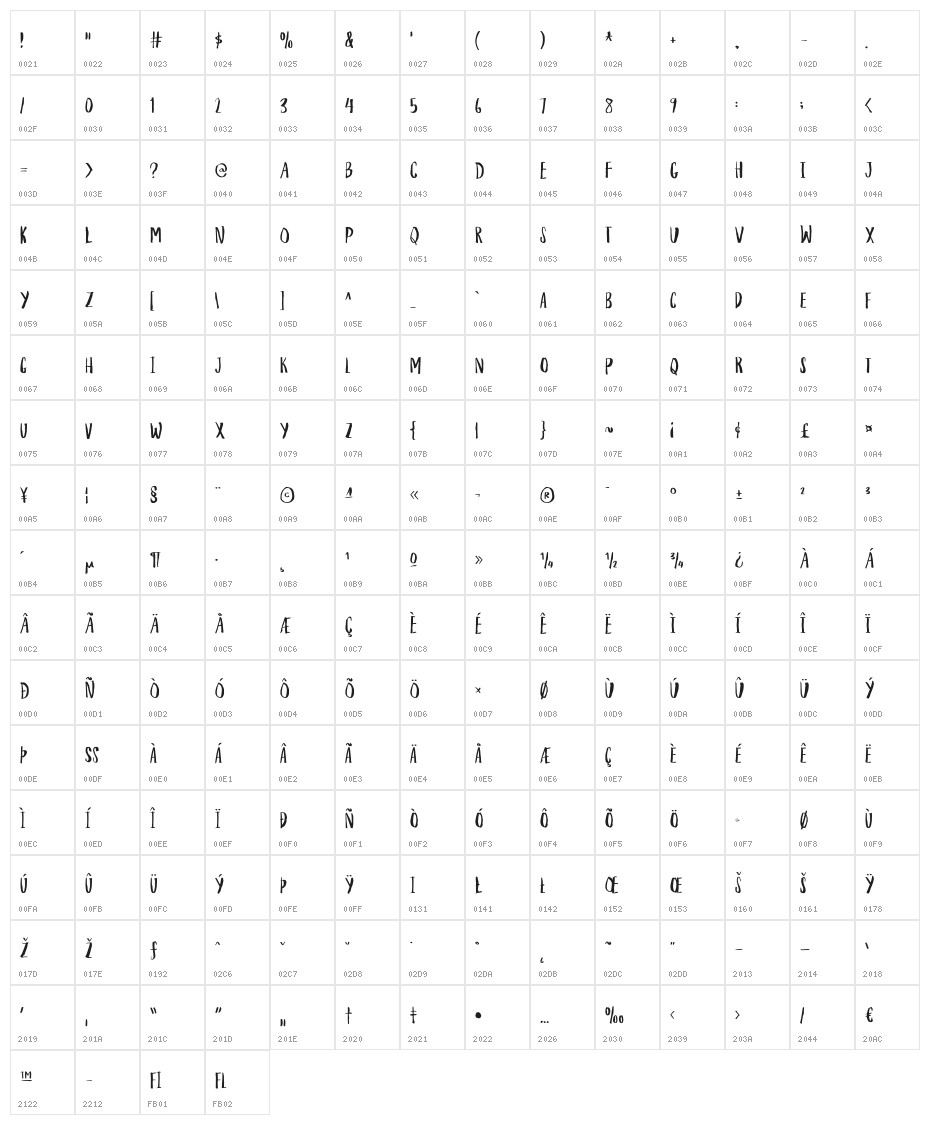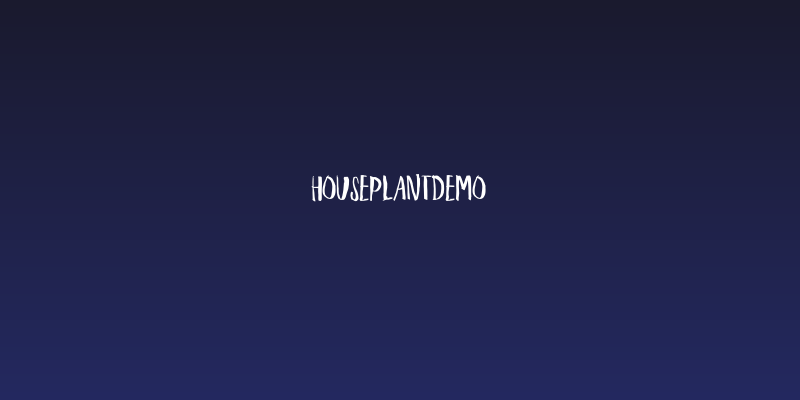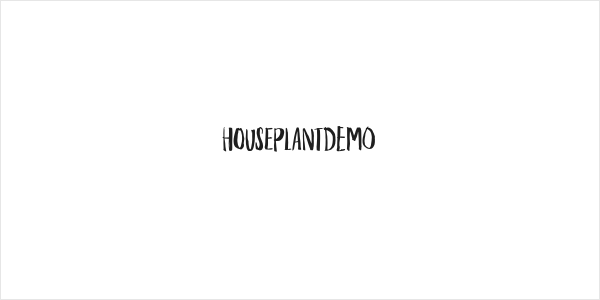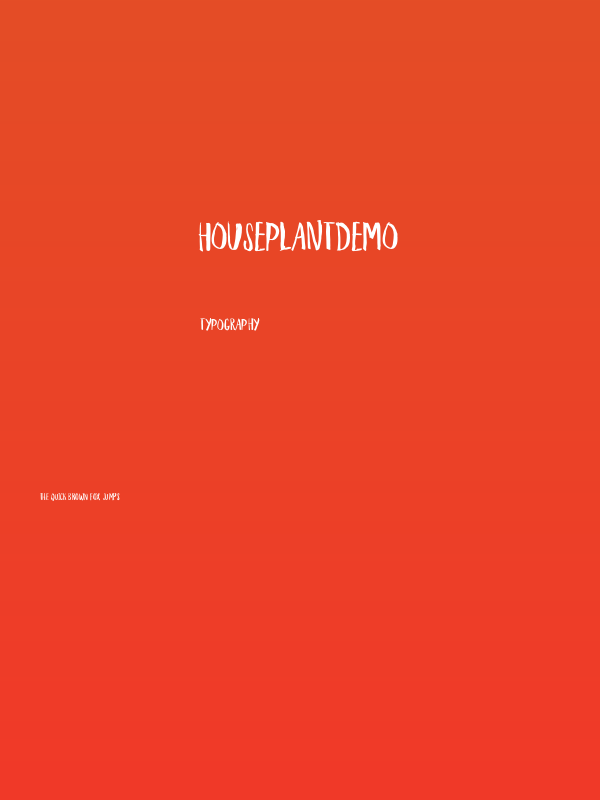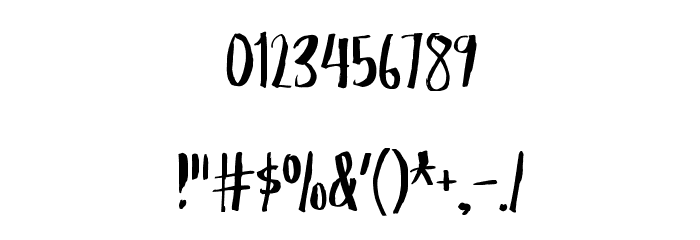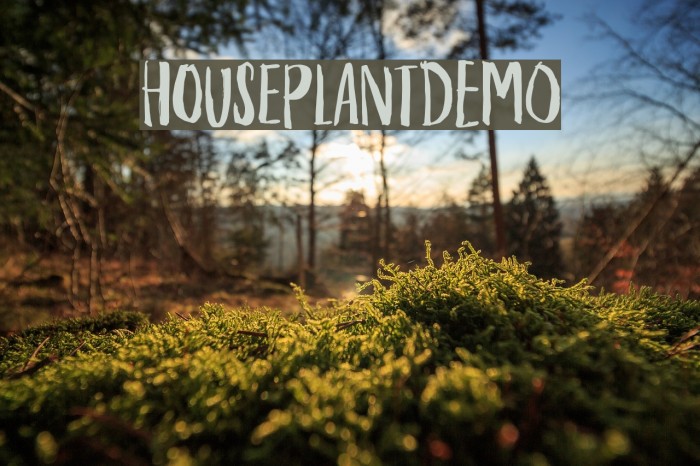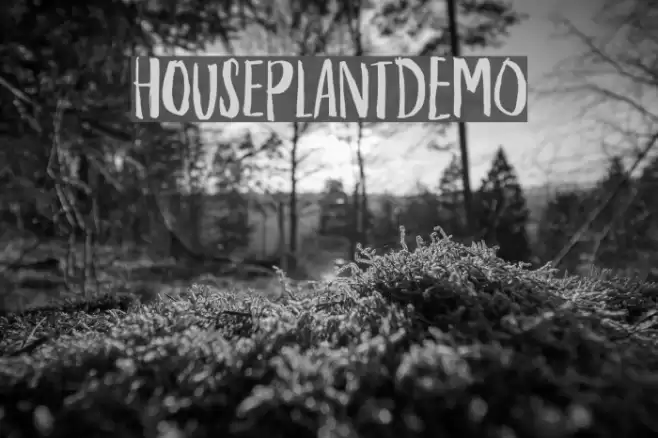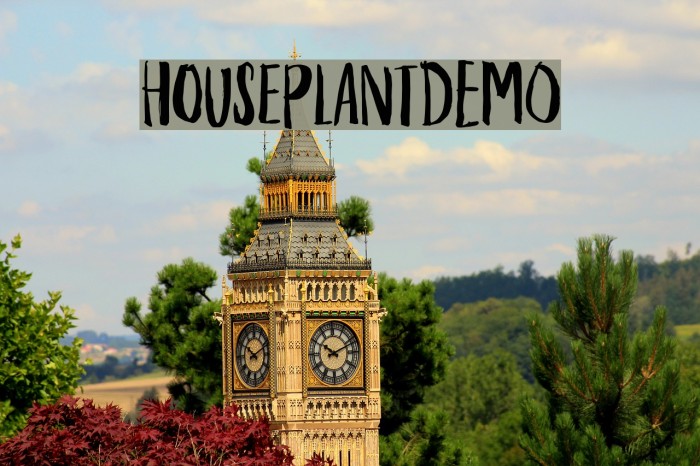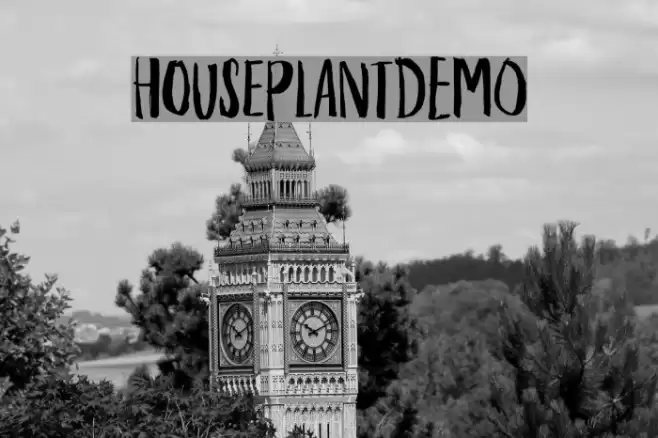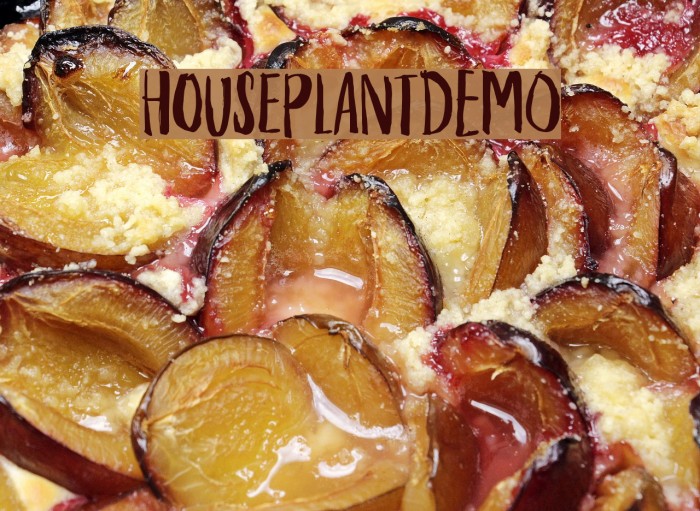
HouseplantDEMO Font
HouseplantDEMO Description
This font exhibits a playful and artistic style, characterized by its irregular and brush-like strokes. The uppercase and lowercase letters maintain a consistent height, giving it a cohesive look while retaining a hand-drawn feel. The numbers and special characters follow the same aesthetic, ensuring uniformity across all glyphs. The font's unique charm lies in its imperfect lines and dynamic curves, making it stand out as a decorative choice. Its organic appearance suggests a sense of creativity and spontaneity, ideal for projects that require a personal touch.
| Proposed Projects | Ideal for creative projects such as posters, invitations, branding, and packaging that require a personal and artistic touch. |